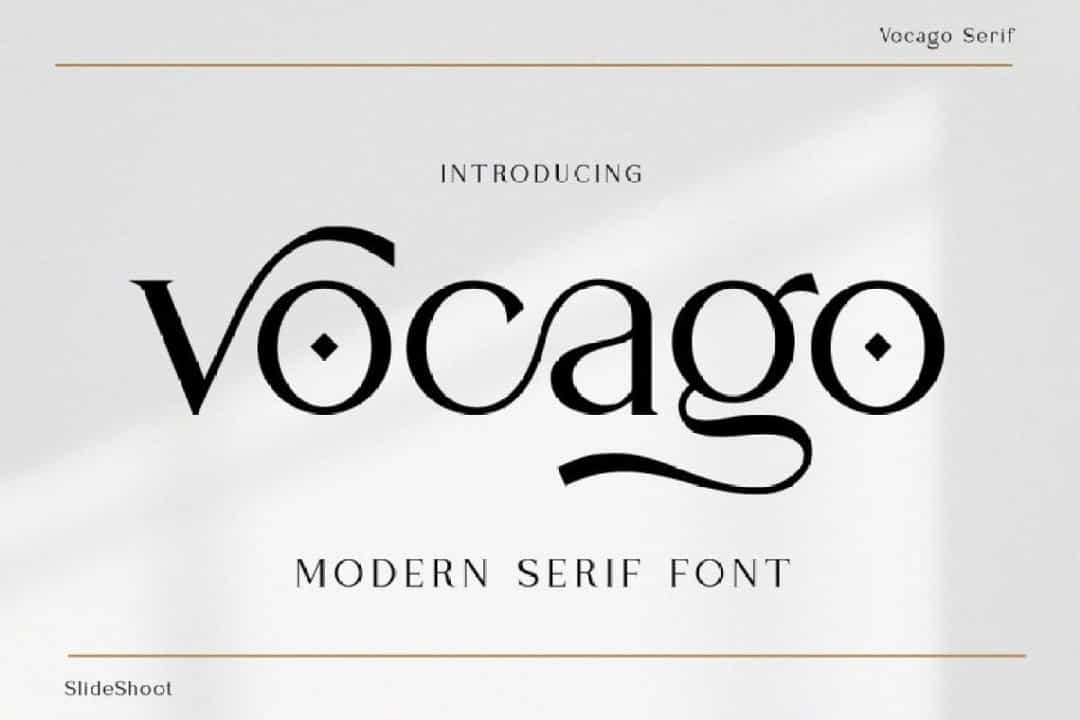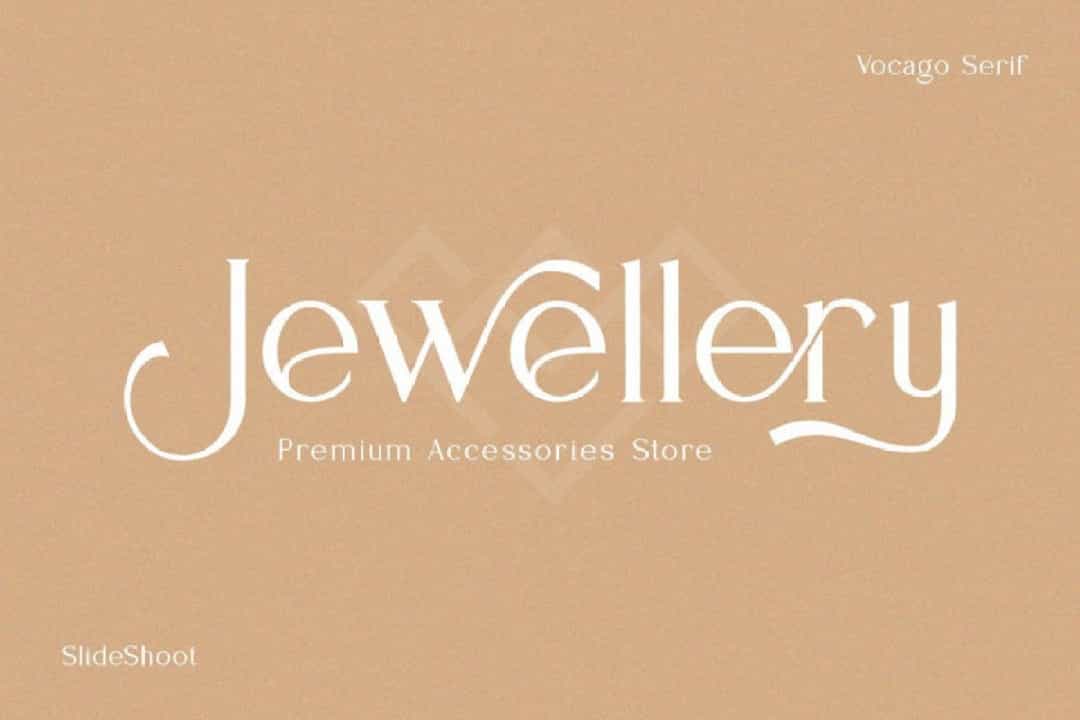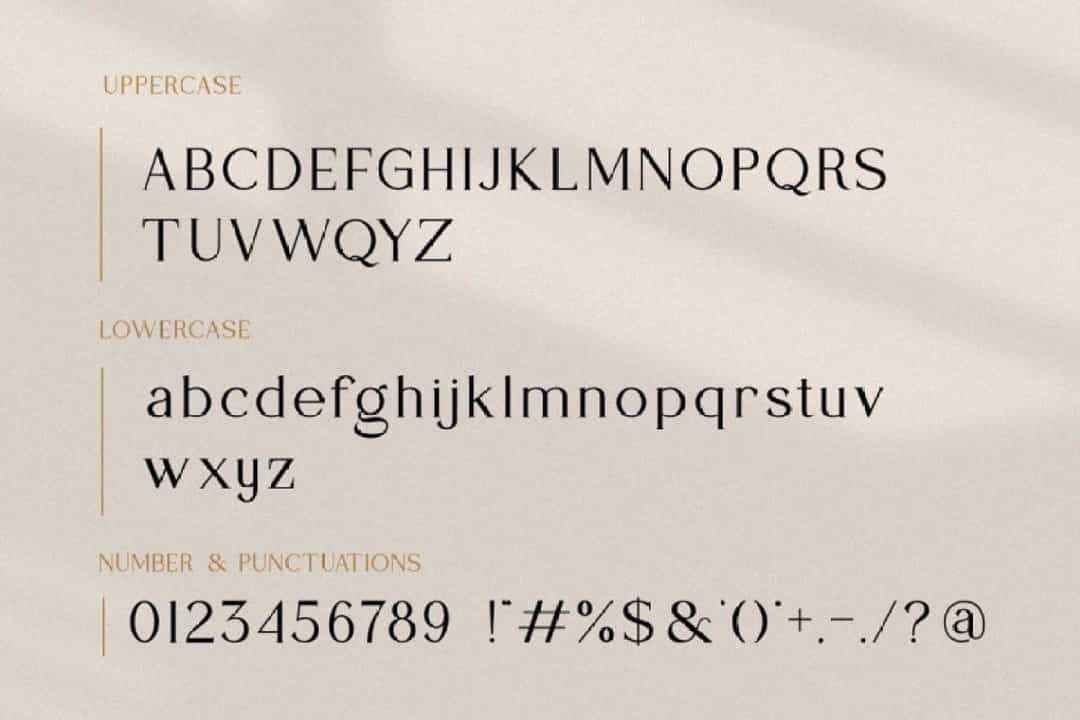
Discover Vocago Font, part of the Serif collection—a versatile and unique font perfect for adding a personal touch to your projects. Download it for free and enjoy crafting designs with style, from invitations to social media posts. This font is available exclusively for personal use, giving you the freedom to create without limits. Unlock your creativity with Vocago Font today!
Vocago Serif font is an elegant, smooth, and sophisticated serif font designed to enchant its audience. This exquisite font makes an impressive impression. Perfect for invitation card designs, corporate logos movies film names titles books business cards titles brands & many other designs! Vocago Serif font exudes sophistication while its elegant variations & ligatures provide it an ideal partner to any project!